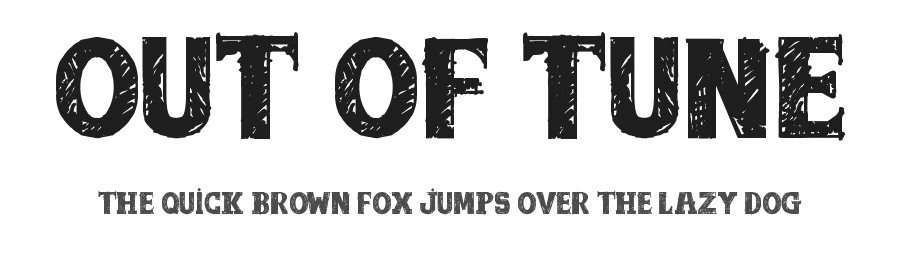
About Rock Bro Font
Rock Bro is a decorative font designed by Ebad Siddique. It includes 84 glyphs, a regular weight, OTF (CFF) format, and 197 languages. Rock Bro is free to download; check the license details on this page before commercial use. Decorative fonts like Rock Bro work best for logos, posters, packaging, and standout headlines.
Rock Bro Font is a decorative font that shines as a display or heading face. Pair it with a clean sans-serif or serif font for body text β the contrast creates a clear hierarchy while the two styles stay balanced and easy to read.